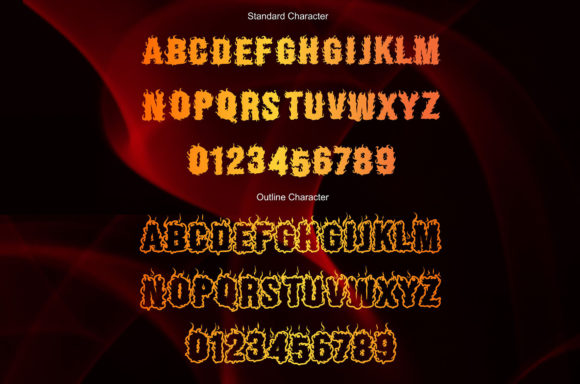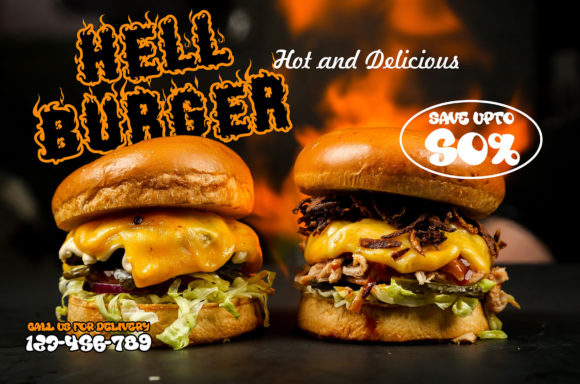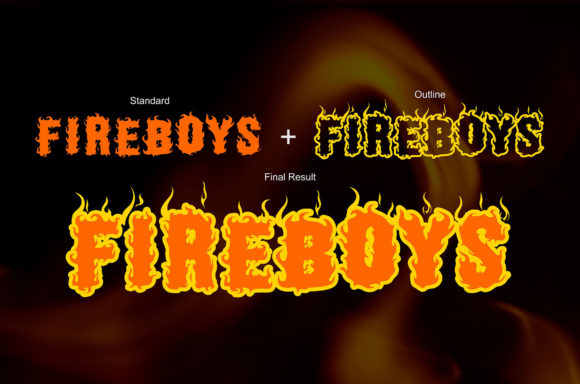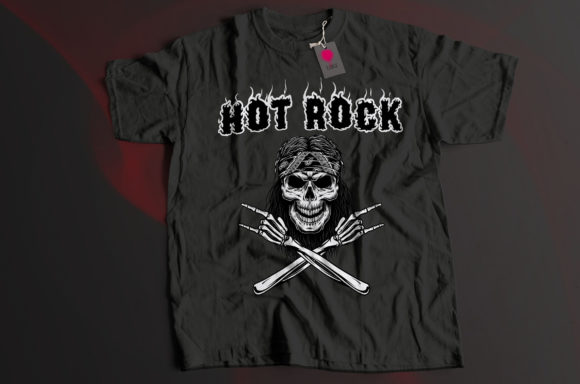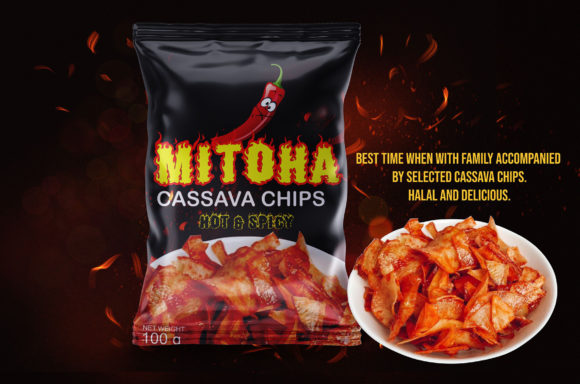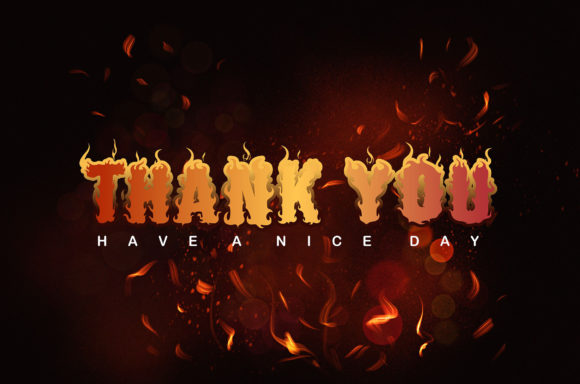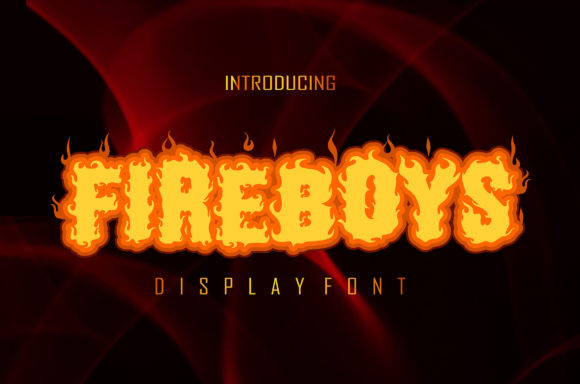
The Fire Boys Font: A Decorative Delight for Creative Minds
As a designer, I’ve had my fair share of font struggles. I recall working on a project for a client who wanted a unique, eye-catching font that would make their brand stand out. After hours of scouring the internet, I stumbled upon the Fire Boys font. Its quirky, original feel immediately caught my attention, and I knew I had found the perfect fit. In this article, I’ll share my experience with the Fire Boys font, its features, and how to make the most of it in various design platforms.
- ✨ Unique and original design that adds a touch of personality to any project
- ✅ Highly versatile and suitable for various design applications, from logos to social media graphics
- 🎉 Excellent for creating eye-catching titles, headings, and emphasis text
- 💻 Works well with both digital and print designs
While the Fire Boys font is an excellent choice, there are a few things to keep in mind:
- ⚠️ May not be suitable for body text or long-form content due to its decorative nature
- 🤔 Limited legibility at small font sizes, making it best suited for headlines and titles
- Experiment with OpenType features, such as glyphs and stylistic alternates, to add more personality to your text.
The Designer Inspiration Behind Fire Boys
The Fire Boys font was designed with the intention of creating a unique, eye-catching font that would add personality to any design project. The designer aimed to create a font that would be both decorative and versatile, suitable for a wide range of applications. While the designer’s identity may be unknown, their passion for creating a high-quality font is evident in the final product.
| Author | Cikareotype |
| What type of projects is the Fire Boys font best suited for? | The Fire Boys font is ideal for projects that require a unique, eye-catching font, such as logos, social media graphics, and titles. |
| Is the Fire Boys font suitable for body text or long-form content? | No, the Fire Boys font is best suited for headlines, titles, and emphasis text due to its decorative nature. |